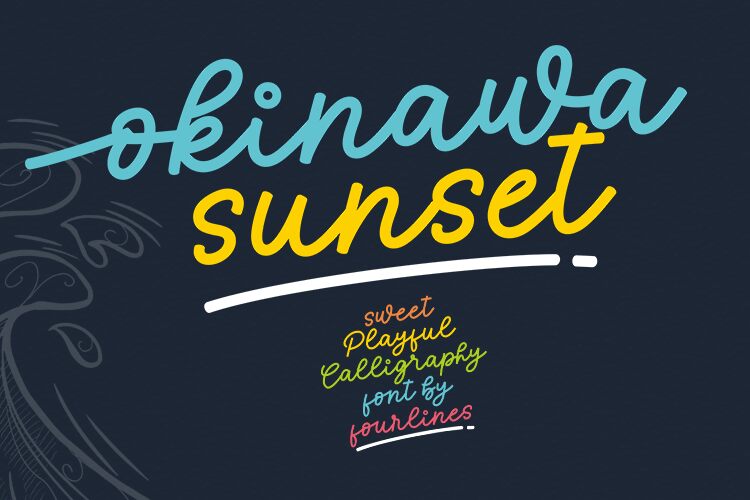
Okinawa Sunset is a stunning handwritten font designed by Four Lines. This semi-light typeface features flowing curves and unique letterforms, giving your designs a personal touch. Its gentle weight makes it perfect for delicate and feminine projects such as wedding invitations, greeting cards, and beauty branding. The casual yet classy feel of Okinawa Sunset also lends itself well to fashion, food, and lifestyle blogs. This font is sure to bring attention to your content and elevate your brand's visual appeal.